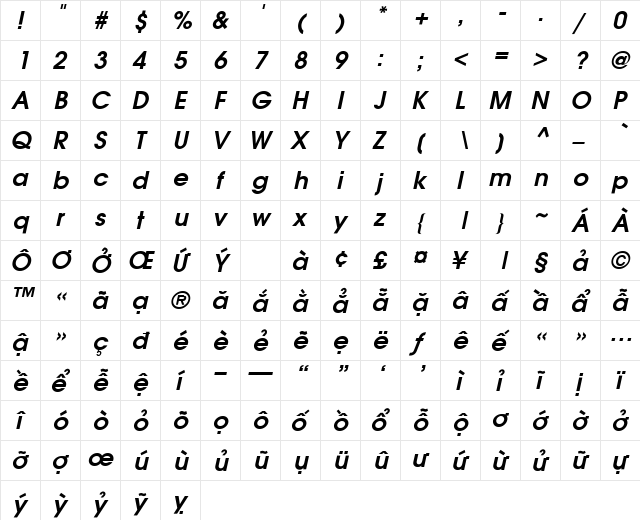
.VnAvant Bold Italic
Design Context for .VnAvant Typeface
.VnAvant is a composed and adaptable typeface that performs quietly and consistently across a wide range of design contexts. The slanted form adds forward momentum and visual energy. The heavy weight commands attention and anchors typographic hierarchies.
Pro Tip: Try .VnAvant for annotation and caption copy alongside an upright companion — the contrast in angle creates a dynamic but ordered typographic system.